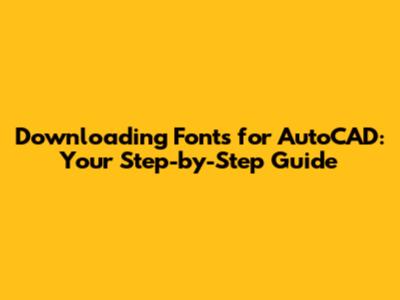
- Google Fonts: This is a fantastic starting point. Google Fonts offers a vast library of free, open-source fonts. They're all web-safe and easy to download. Plus, you can preview the fonts directly on the site, making it super easy to find what you're looking for. Seriously, it's a goldmine! They are perfect for both personal and commercial use.
- DaFont: DaFont is another great option, especially if you're looking for more unique or specialized fonts. It has a massive collection, categorized for easy browsing. You'll find everything from basic fonts to themed ones. Just be sure to check the license before using a font for commercial purposes. Some fonts are free for personal use, but require a license for commercial projects.
- Font Squirrel: Font Squirrel is known for its high-quality, hand-picked fonts, many of which are free for commercial use. They also offer a handy font identifier tool, in case you stumble upon a font you like but don't know the name. This site is great for finding fonts that are both beautiful and legally usable in your professional work.
- 1001 Fonts: As the name suggests, this site offers a massive selection of fonts. It's a great place to explore and find something that fits your project. You can filter by style, size, and even the font's intended use. They provide previews and download options to make it easy for you.
- Behance and Dribbble: These platforms are fantastic for creative inspiration. While not dedicated font download sites, many designers share their custom fonts or links to their download sources. It is great for discovering unique and custom fonts. Check the license details, as they can vary.
- Legibility is key: Always prioritize readability, especially in technical drawings. Avoid overly stylized or decorative fonts that can be hard to decipher.
- Consider the scale: Make sure the font is readable at the scale your drawing will be viewed at. Test the font at different sizes to ensure it's clear and easy to understand.
- Restart AutoCAD: Close and restart AutoCAD so that it can recognize the new font.
- Open the Text Style Dialog: In AutoCAD, type
STYLESor go to the 'Annotation' panel on the 'Home' tab and click on the text style icon. This opens the text style dialog box. - Create a New Style: Click 'New' to create a new text style, or select an existing style to modify. Give your new style a descriptive name (e.g.,
Hey there, CAD enthusiasts! Ever wondered how to jazz up your AutoCAD drawings with some cool fonts? Well, you're in the right place! This guide is all about how to download fonts for AutoCAD, making your designs not only functional but also visually appealing. We'll walk you through the entire process, from finding those perfect fonts to getting them up and running in your AutoCAD environment. So, grab a coffee, and let's dive in! This article is designed to be your go-to resource for everything related to fonts in AutoCAD. We'll cover where to find fonts, how to install them, and how to use them effectively in your projects. Let's make your drawings stand out!
Finding the Right Fonts for Your AutoCAD Projects
Alright, first things first: where do you even find these magical fonts? The internet is a treasure trove, guys! There are tons of websites offering a wide variety of fonts, from the classic and professional to the quirky and creative. The key is knowing where to look. Let's explore some of the best places to discover fonts that will perfectly suit your AutoCAD projects. Remember, the right font can significantly enhance the readability and aesthetic appeal of your drawings.
Creating and Modifying Text Styles